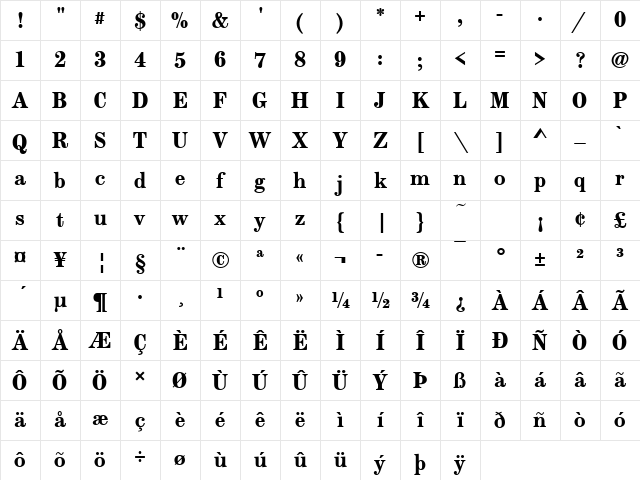
Modern Becker Extd Bold
Modern Becker Extd Family
Complete Modern Becker Extd Bold glyph index. Displaying only characters natively supported by Modern Becker Extd Bold font.
Design Context for Modern Becker Extd
Modern Becker Extd is a composed and adaptable typeface that performs quietly and consistently across a wide range of design contexts. Its bold stroke weight gives it real presence on the page.